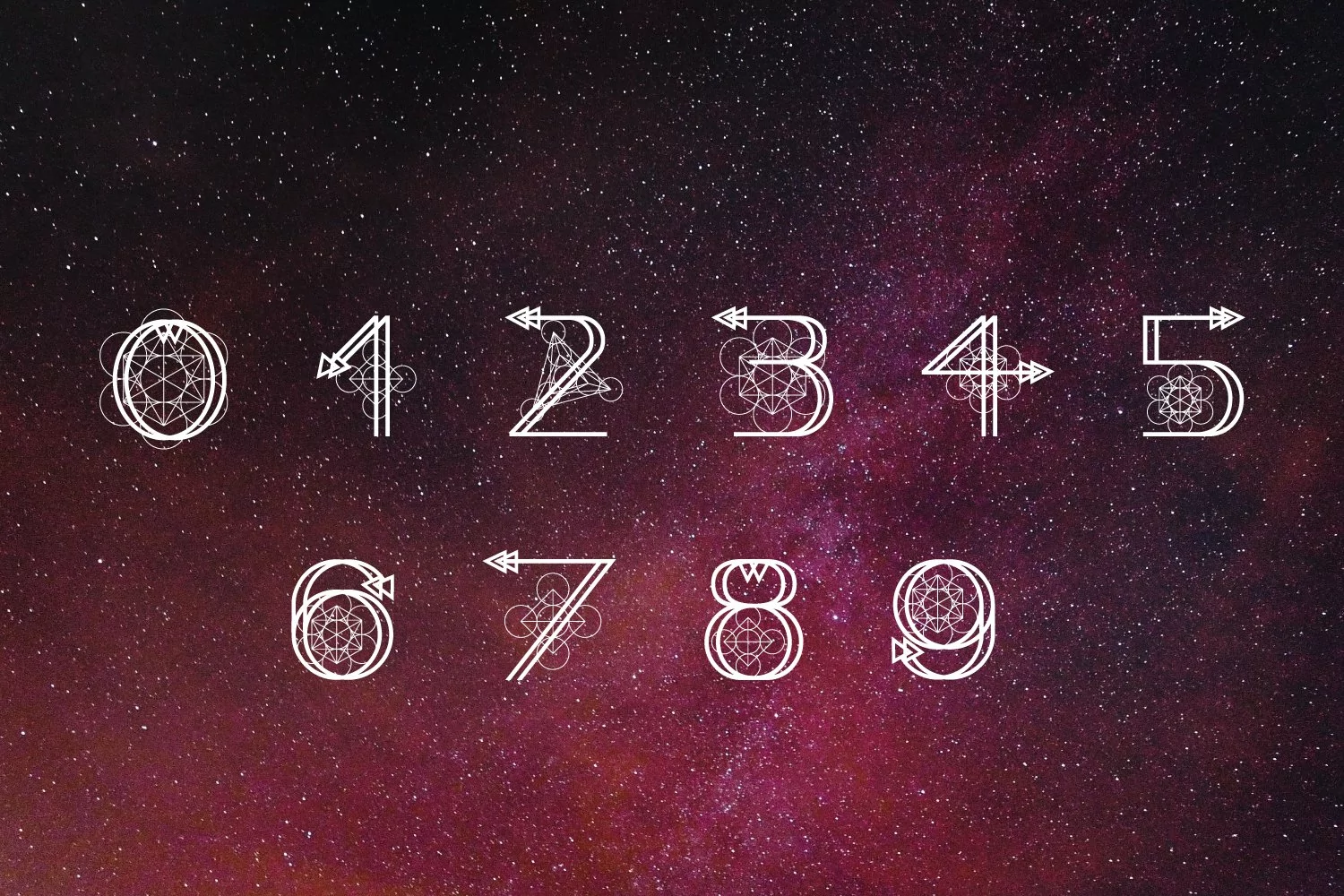
presenting sacred geometrical font for your next project. This special font is symbol based and made on the basis of uppercase alphabets. we have also added the numbers and you can create stunning logos with this font.